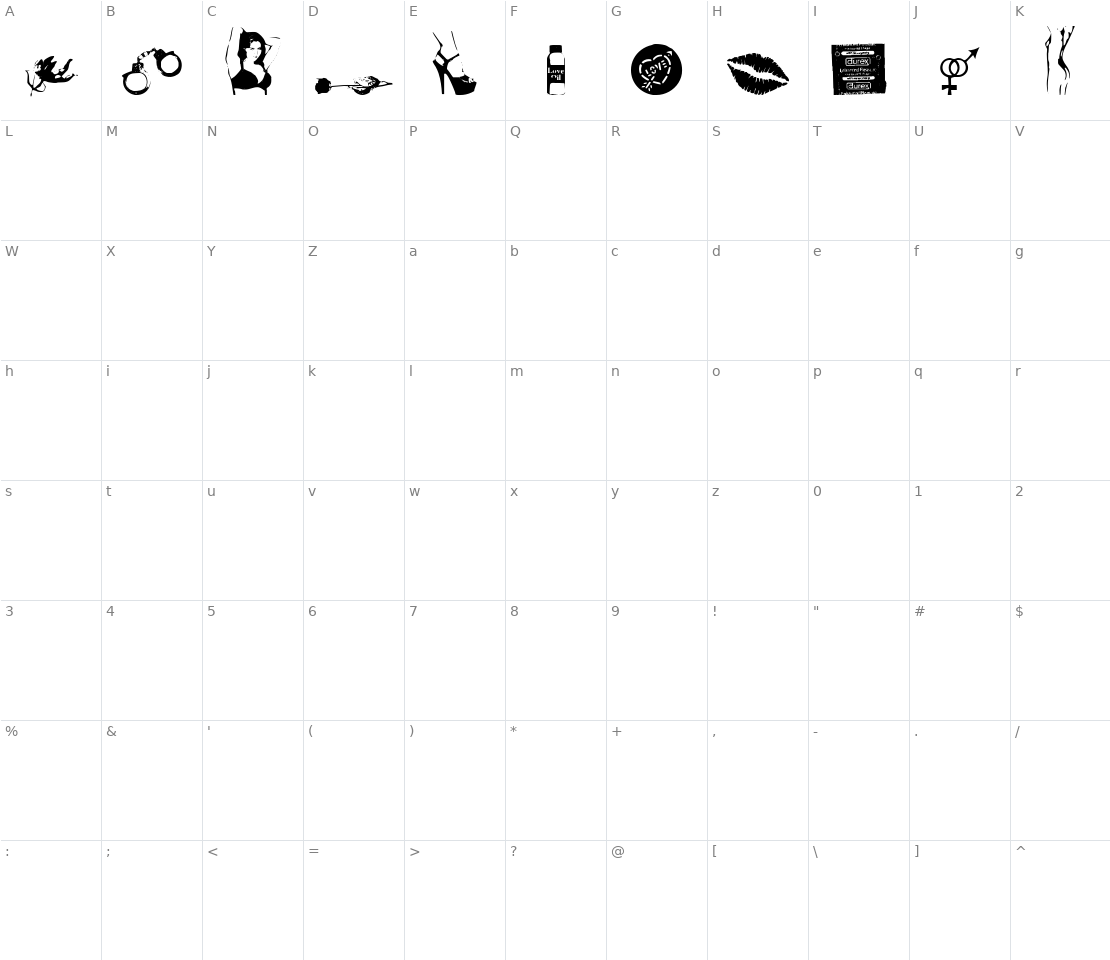
Kinky Valentine
by Blonde Fonts
Kinky Valentine is a dingbat font from Blonde Fonts filled with romantic and adult-themed silhouette symbols, ranging from hearts and love iconography to more risqué imagery. It's a niche decorative set designed for Valentine's Day projects, party invitations, or playful branding that leans into a flirtatious, grown-up tone.